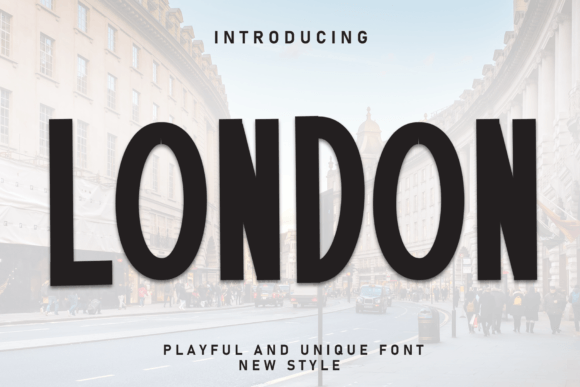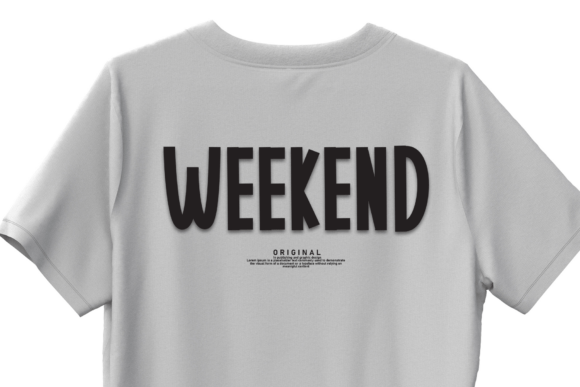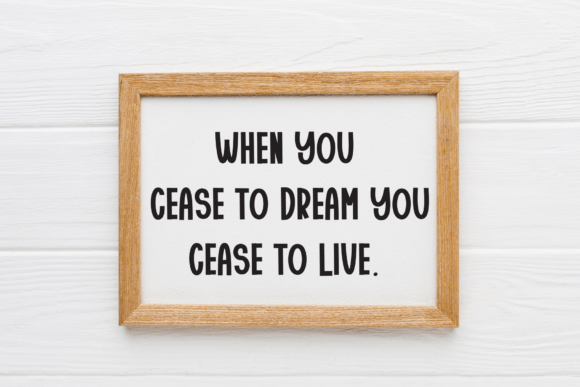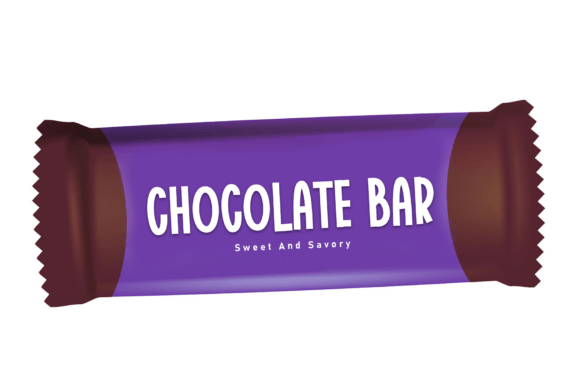
London Font
About the London Font
Make a bold statement with London Font, a powerful and memorable font. London
is a bold, tall display font that captures attention with its strong, sleek lines. Perfect for headlines and posters, it has a modern look that stands out and makes a statement.
Its strong verticality and bold strokes make London ideal for large-scale applications such as headlines, posters, and branding elements where impact is key. It also works well on packaging where a concise and memorable statement is desired. However, its weight and condensed nature make it unsuitable for body text or long-form content; readability suffers at smaller sizes.
London’s inherent boldness pairs well with clean, minimal sans-serif fonts like Helvetica or Open Sans for a contemporary feel. For a more traditional contrast, a classic serif like Garamond or Times New Roman offers a sophisticated counterpoint. Avoid pairing it with other heavy or highly decorative fonts, which would create visual clutter.
The overall personality of London is bold, confident, and modern, best suited for brands projecting strength, sophistication, or a forward-thinking image. Think high-end fashion, technology companies, or architectural firms.